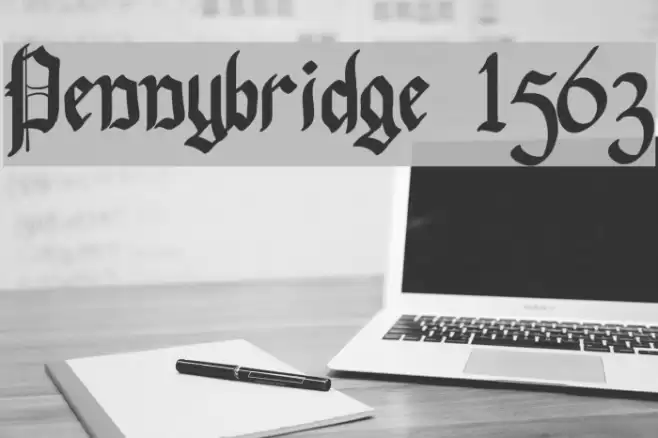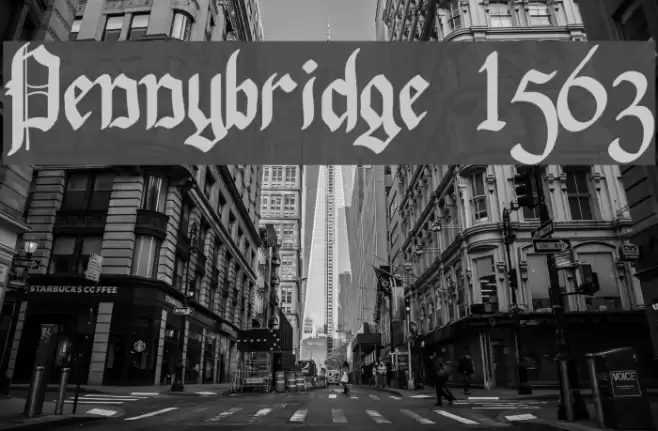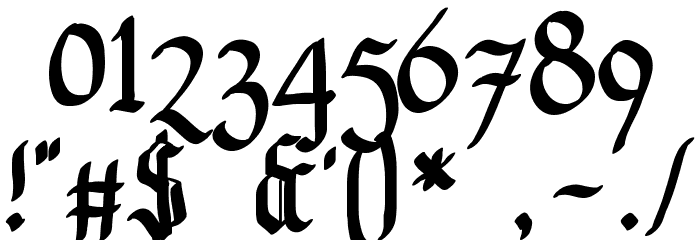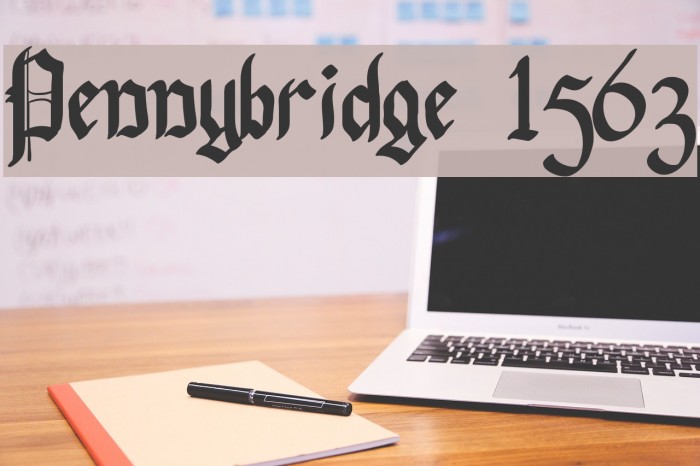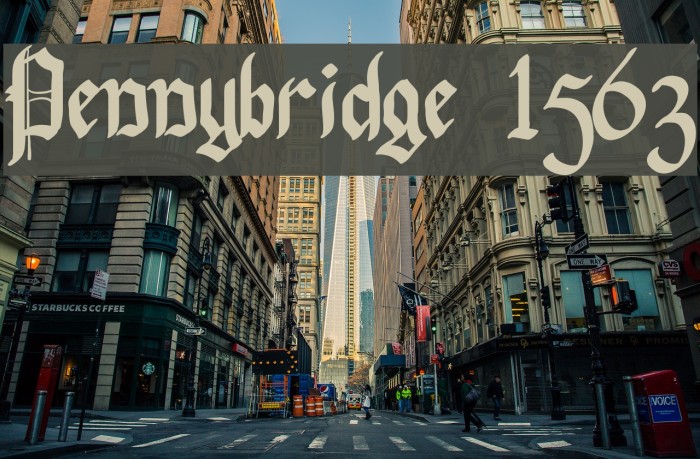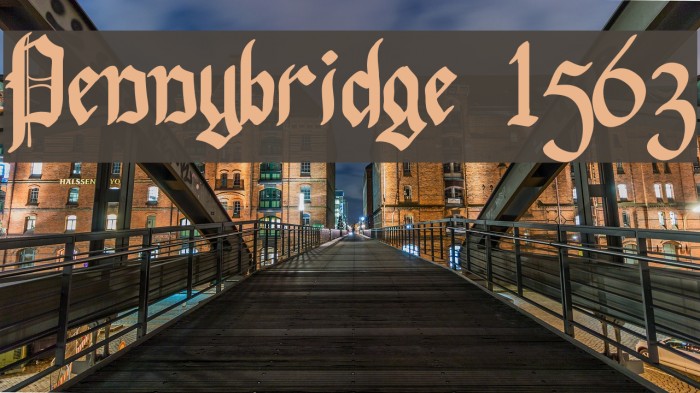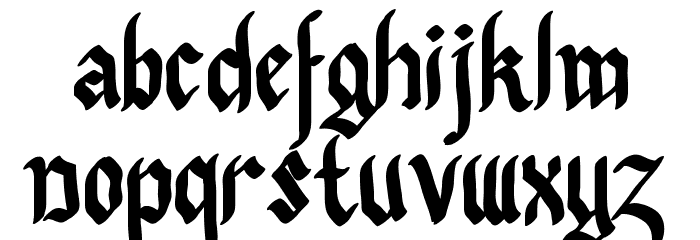
Pennybridge 1563 Font
Pennybridge 1563 Description
This font features a striking blackletter style, characterized by its sharp, angular lines and intricate detailing. The uppercase letters exhibit a dramatic flair with elongated vertical strokes and pointed serifs, reminiscent of medieval script. The lowercase letters maintain the same gothic aesthetic, with consistent thickness and ornate curves. Numbers and special characters are designed to match the overall theme, providing a cohesive look. The font's unique appearance makes it ideal for projects that require a historical or dramatic touch.
A bold, blackletter font with sharp, angular lines and medieval flair from Uncategorized fonts.
- Proposed Projects: Ideal for historical documents, gothic-themed designs, book covers, and event posters.
- Character Spacing: Tight
- Overall Style: Vintage
- Use Case: Logos, Headlines, Decorative text